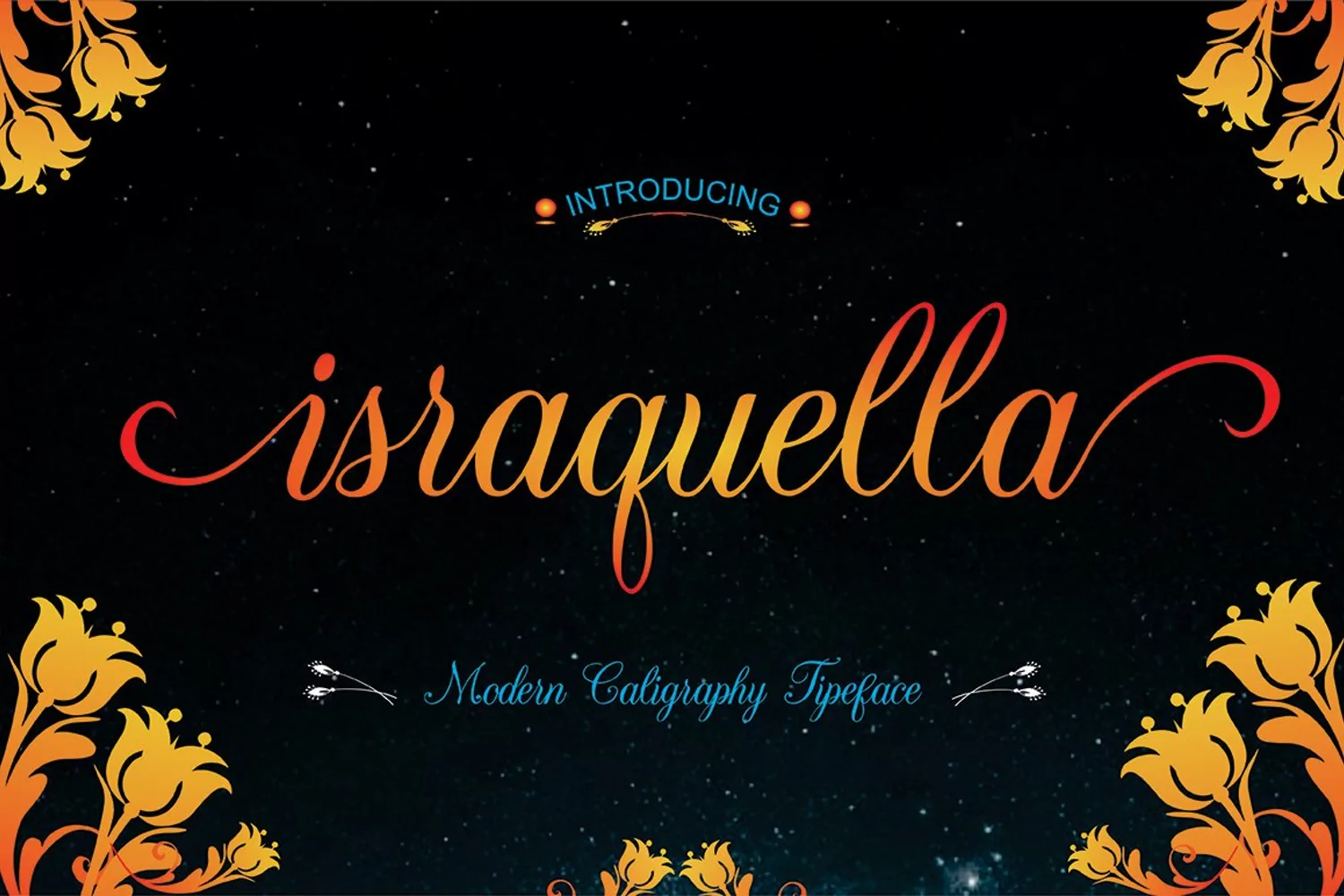
Israquella - Stylized Romantic Script Font
This beautifully stylized script font exudes a love for lettering. The attention to detail is spectacular. It has a modern twist in a calligraphic design with perfectly tight letter spacing and extra care for swashes. Add romance, luxury and charm to your text with the Israquella script font.